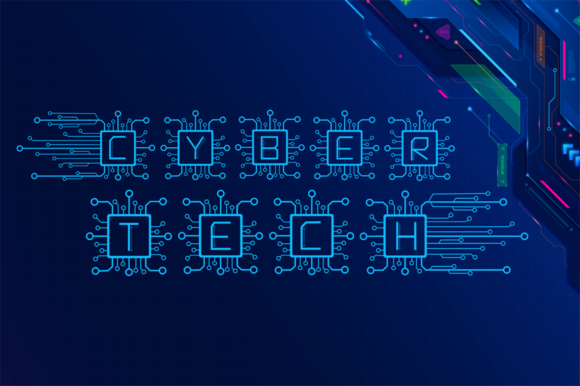
Adorn your designs with the captivating allure of Cyber Tech Font, a decorative font family that radiates an aura of digital enchantment. Enter the realm of creativity, where pixels dance and imagination reigns supreme. Inspired by the vibrant world of computer technology, Cyber Tech Font ignites a spark of innovation in every project it graces.
Unleash your inner artist and let the flowing lines and sharp angles of Cyber Tech Font weave their magic into your designs. Its techno-infused aesthetic adds a touch of futuristic elegance, perfect for projects that demand a modern edge. Whether you're crafting web designs, business cards, or any other design that craves a unique voice, Cyber Tech Font stands ready to elevate your work to new heights.
Immerse yourself in a universe of digital wonders, where Cyber Tech Font transforms ordinary text into extraordinary expressions of creativity. Its sleek and stylish design captures the essence of the digital age, while its innate versatility allows it to adapt seamlessly to a multitude of design styles. From bold headlines that command attention to delicate details that add a touch of sophistication, Cyber Tech Font is your trusted companion on your creative journey.